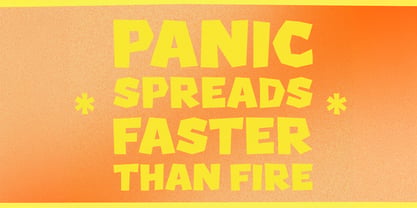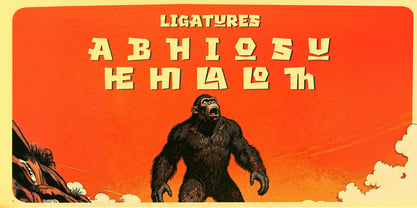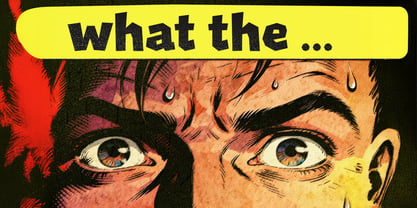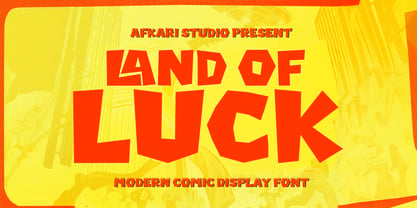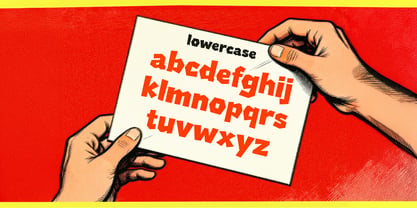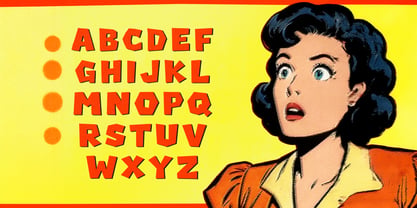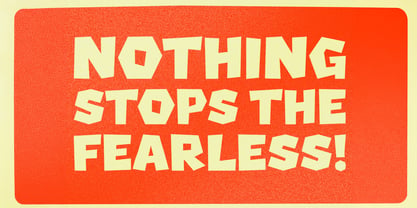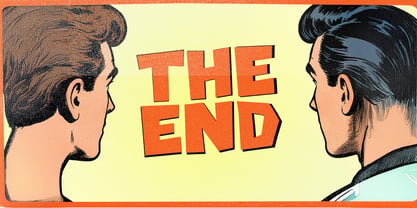
Land of Luck
by Afkari Studio
The Land of Luck Font Family was designed by Musthafa Kamal Emje and published by Afkari Studio. Land of Luck contains 1 styles. More about this family
Land of Luck is a fun and energetic modern comic display font designed to bring joy, playfulness, and bold personality into your designs. With chunky shapes, smooth curves, and a friendly cartoon-inspired style, this font delivers a lively look that instantly grabs attention. Perfect for creative projects that need a cheerful and approachable vibe, Land of Luck works beautifully for kids designs, comics, posters, branding, packaging, social media content, and playful headlines. Its modern comic style keeps the font fresh and versatile—fun without feeling childish. Land of Luck is made for designers who want their typography to feel happy, bold, and full of character. Highlighted Features: - Uppercase, Lowercase, Number, and Punctuation - Special alternates and ligatures - Works on PC & Mac - Simple installations - Accessible in Adobe Illustrator, Adobe Photoshop, Adobe InDesign, and even work on Microsoft Word - Fully accessible without additional design software. - Mültîlíñgúãl Sùppört for; ä ö ü Ä Ö Ü ß ¿ ¡ Add a cheerful spark to your designs with Land of Luck – Modern Comic Display Font, where fun meets modern creativity.
Designers: Musthafa Kamal Emje
Foundry: Afkari Studio
Afkari Studio is An foundry based in Aceh, We Discover Unique Typefaces Made with Love for Unlimited projects Just For You. Afkari Studio has been trying to create unique, attractive fonts that can be used for all kinds of needs that prioritize aesthetics and look different from others. We always create unique fonts because we believe that a unique font will have its own taste for its users.